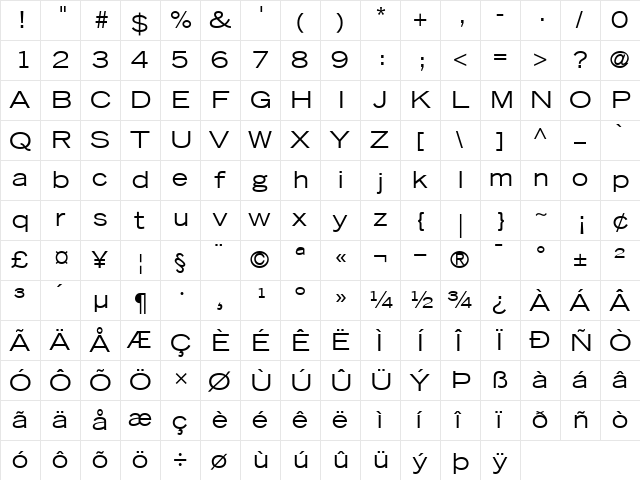
TradeGothicLH-Extended Roman
Design Context for TradeGothicLH-Extended Typeface
TradeGothicLH-Extended has the quiet confidence of well-executed sans-serif typography: versatile, unobtrusive, and dependable at any size.
Font Pairing: Works well alongside a characterful serif or display font that can carry the expressive load while TradeGothicLH-Extended handles the functional copy.
Pro Tip: Use TradeGothicLH-Extended for UI labels, navigation, and short-form body copy where clean legibility is the priority.